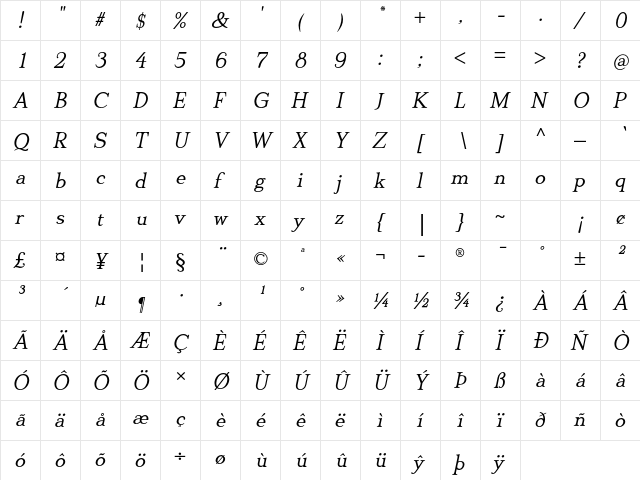
DionisiiOTF Italic
| Foundry | Denis A Serikov |
| Designer | Denis A Serikov |
Design Context for DionisiiOTF Typeface
DionisiiOTF offers clean, dependable letterforms without strong stylistic allegiance, making it a practical choice for designers who need flexibility. The slanted form adds forward momentum and visual energy.
Pro Tip: Try DionisiiOTF for annotation and caption copy alongside an upright companion — the contrast in angle creates a dynamic but ordered typographic system.